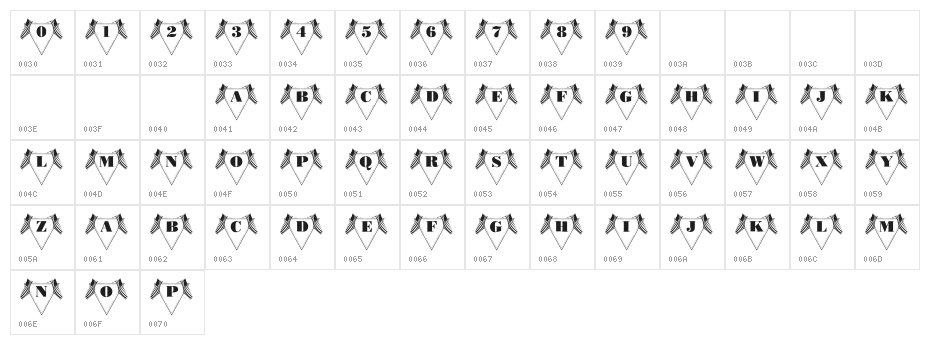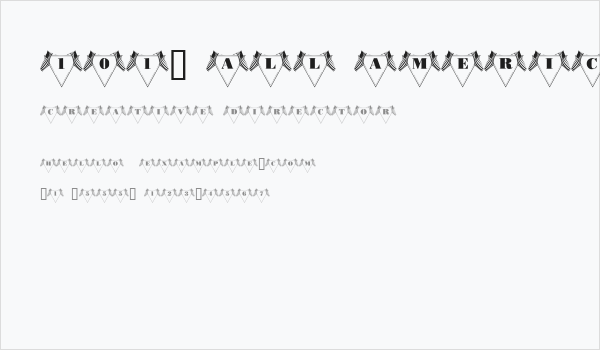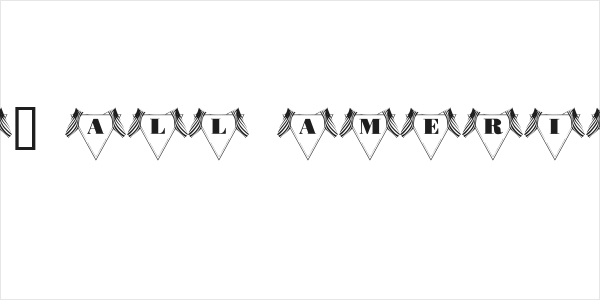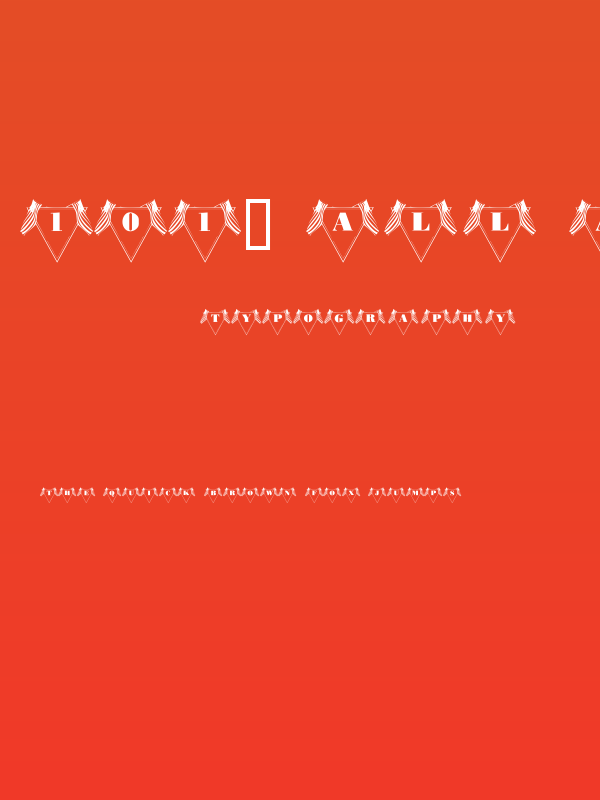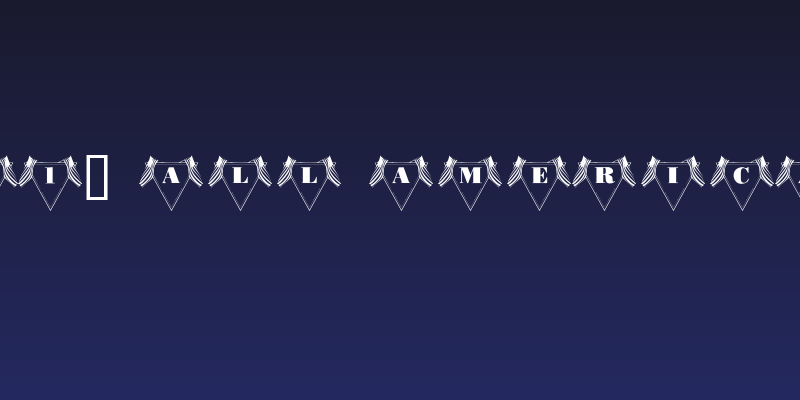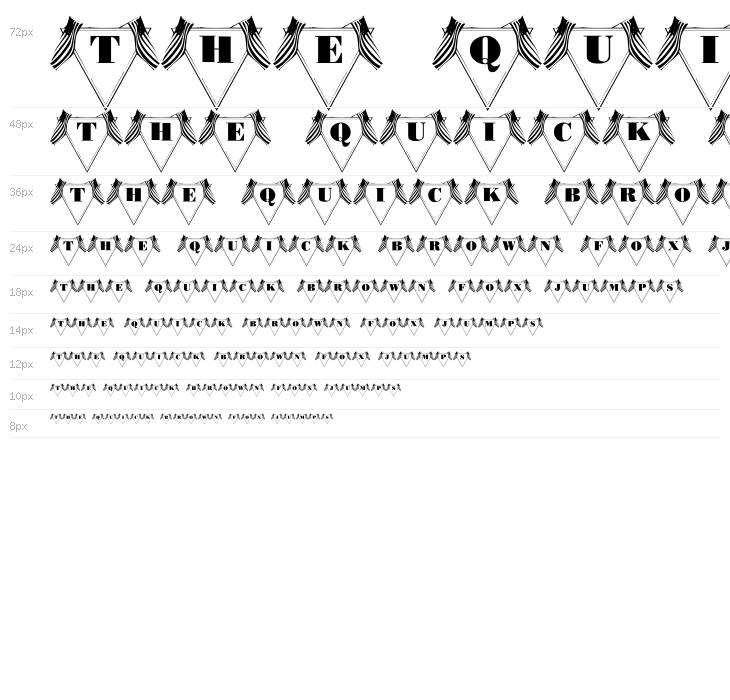
101! All American Font
101! All American Description
This font features a unique decorative style where each character is enclosed within a shield-like emblem, adorned with intricate patterns reminiscent of heraldic designs. The uppercase and lowercase letters maintain a consistent form, with bold strokes that give them a strong presence. The numbers follow the same stylistic approach, ensuring uniformity across all characters. The special characters are presented in a bold, block-like format, contrasting with the ornate design of the letters and numbers. This font's distinctive appearance makes it ideal for projects that require a touch of elegance and tradition, such as invitations, certificates, or branding materials that aim to convey a sense of prestige and heritage.
| Proposed Projects | Ideal for invitations, certificates, branding materials, or any project requiring a prestigious and traditional aesthetic. |